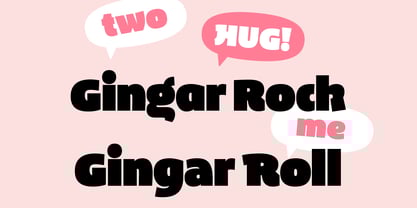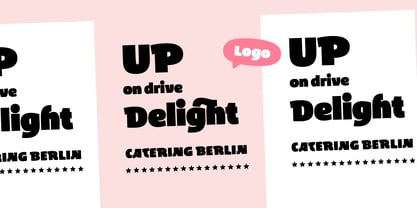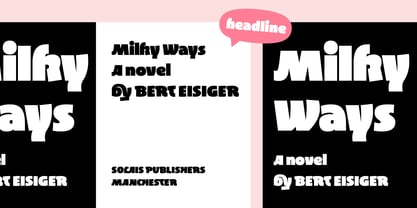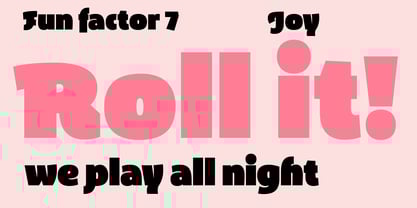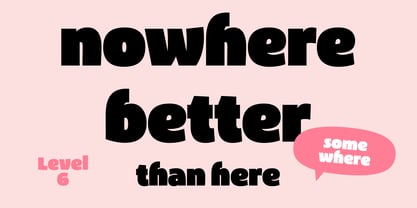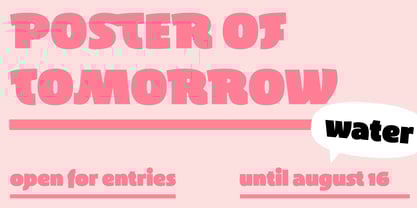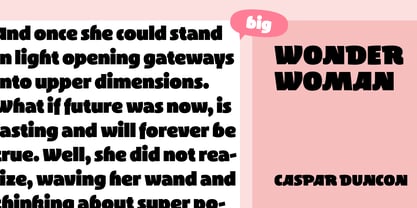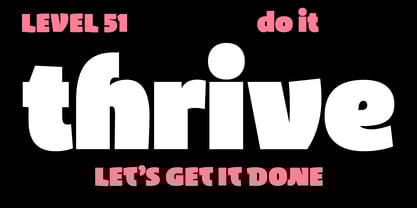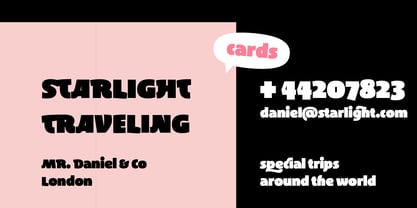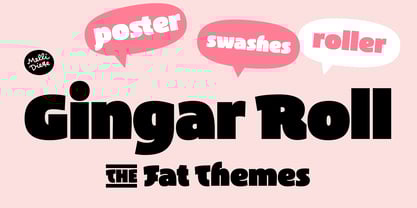
Gingar Roll
by Melli Diete
The Gingar Roll Font Family was designed by Melli Diete and published by Melli Diete. Gingar Roll contains 1 styles.
Rolling: With Gingar Roll. This typeface brings more variety to your poster font library. The included swash letters and catchwords invite to play with words. Gingar Roll has a slightly brush-like appearance and, similar to Gingar Rock, is built on fat shapes. It looks more lively than Rock, yet just as solid. With the additional ligatures, your design project will truly shine.
About Melli Diete
Chi* within letters – harmonic fonts in balance for different aspects of life. As a child, Melli drew little typographic posters to be pinned in the streets. The message was simple: Think of love. Melli Diete is running a Berlin based Type Foundry with – somehow – energetic fonts. Her letters are unique, full of character and made for your creative experience – in harmony and sympathy. While drawing there is a creative mindset – somehow she likes to break free from tradition – of course with typographic knowledge and a sharp eye on the letterforms – she studied type design passionately. Somehow it is more: to influence with creativity, to letting the chi flow in front of a typographic background. Readability is a must, as well as smileys inclusive. She already won some design prices and never runs out of ideas. Lovely fonts! – made in Berlin. :) This is the personal foundry for Melli Diete.